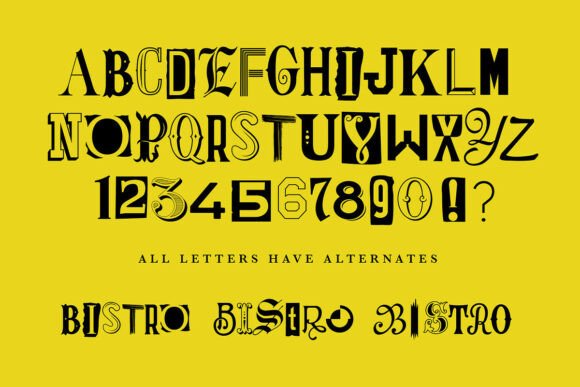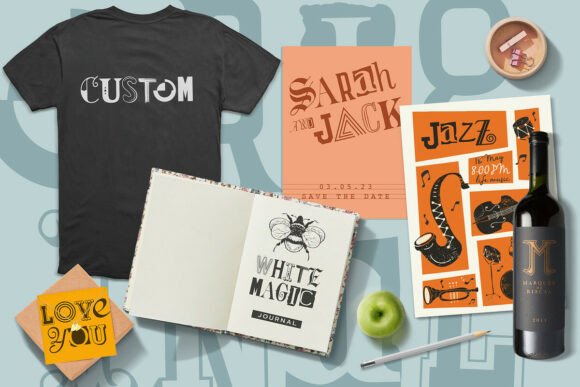
The Ultimate Guide to Collage Font: Adding Whimsy to Your Designs
I’ll never forget the time I was working on a children’s book project, and my client asked for a font that was “fun, playful, and a little quirky.” I scoured the internet, tried out dozens of fonts, but nothing seemed to fit the bill. That was until I stumbled upon Collage Font. This all-caps serif font has been a game-changer for my designs, and I’m excited to share its awesomeness with you! 🎉
What is Collage Font?
Collage Font is a unique, all-caps serif font that boasts a distinctive style for every single letter, along with multiple alternative shapes. This creative typeface includes numbers and essential punctuation marks, making it perfect for eye-catching headlines, poster designs, and branding projects. Whether you’re a designer seeking unconventional typography, creating content for kids, or working on projects that demand personality and visual interest, Collage Font is an excellent choice.
- ✨ Unique and playful lettering that adds visual interest to any design
- ✅ Multiple alternative shapes for each letter, allowing for endless creative possibilities
- 🎉 Perfect for kids’ content, social media graphics, packaging, and t-shirt designs
- 🔍 Includes numbers and essential punctuation marks for versatility
- ⚠️ Some letters may be a bit tricky to read at smaller font sizes due to their unique styles
- 🤔 Limited use for body text or long-form content, as it’s best suited for headlines and titles
The Story Behind Collage Font
Collage Font was designed with creativity and playfulness in mind. The designer, inspired by the art of collage, aimed to create a font that would allow users to mix and match different shapes and styles to create unique and eye-catching designs. With its eclectic and whimsical feel, Collage Font is perfect for designers looking to add a touch of personality to their work.
| Font Name | Collage Font |
| Author | vatesdesign |
Q: What is the best way to use Collage Font?
A: Collage Font is best used for headlines, titles, and short-form content where you want to add visual interest and personality.
Q: Is Collage Font suitable for body text or long-form content?
A: While Collage Font is a beautiful font, it’s not ideal for body text or long-form content due to its unique styles and limited readability at smaller font sizes.